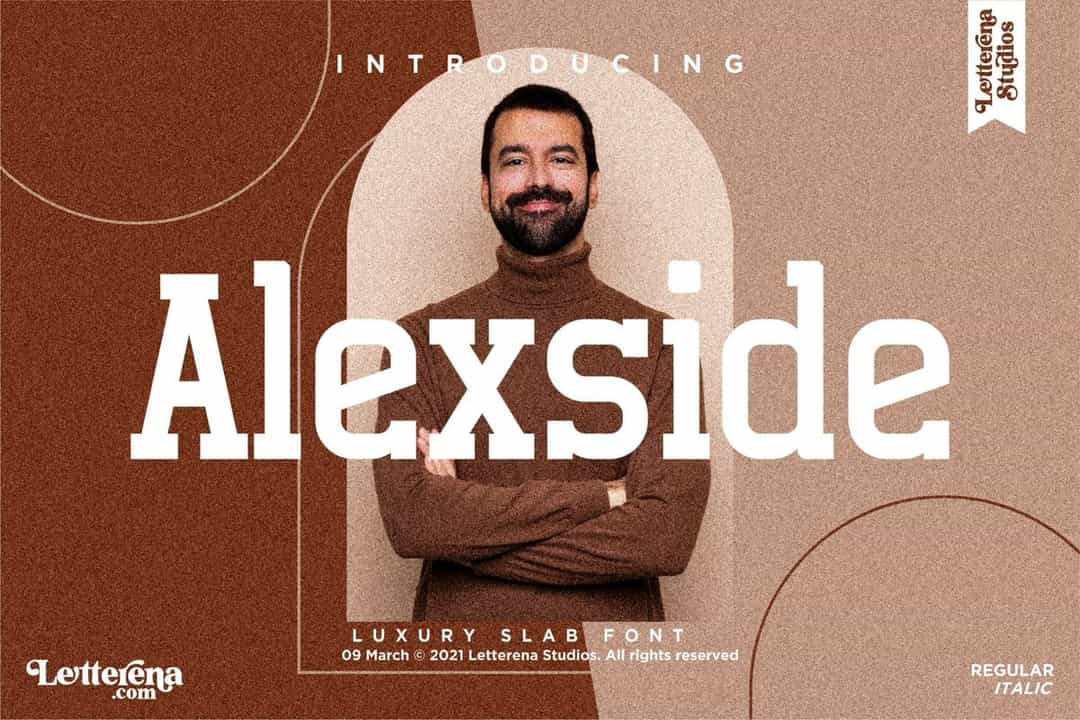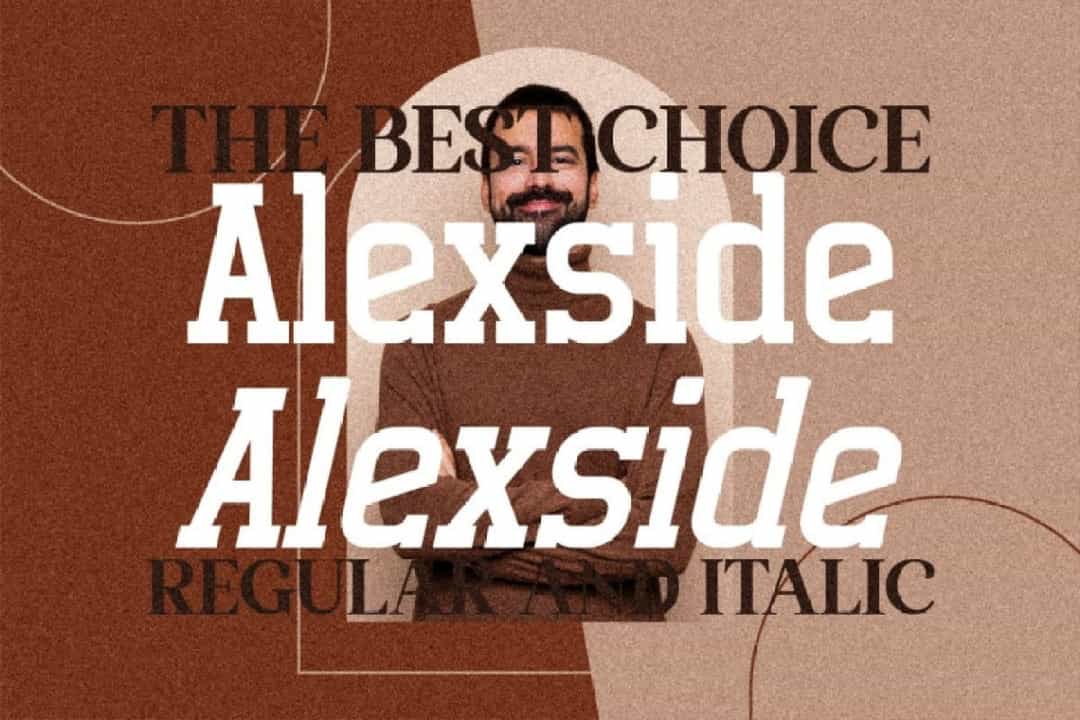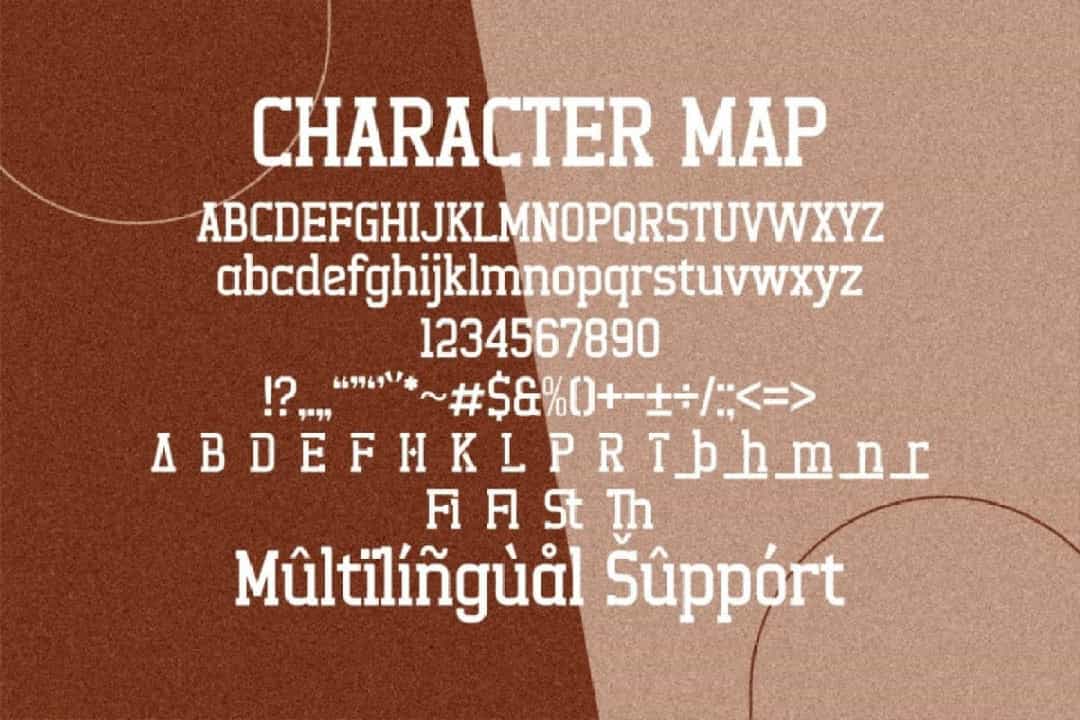
Discover Alexside Font, part of the Slab Serif collection—a versatile and unique font perfect for adding a personal touch to your projects. Download it for free and enjoy crafting designs with style, from invitations to social media posts. This font is available exclusively for personal use, giving you the freedom to create without limits. Unlock your creativity with Alexside Font today!
Alexside is a luxury slab serif font. It is an ideal font for logos, branding designs, homeware designs, packaging for products like mugs, shopping bags with quotes on shopping bags posters, T-shirts, book covers, name cards, invitation cards, greeting cards, labels, photography watermarks, special occasions etc.